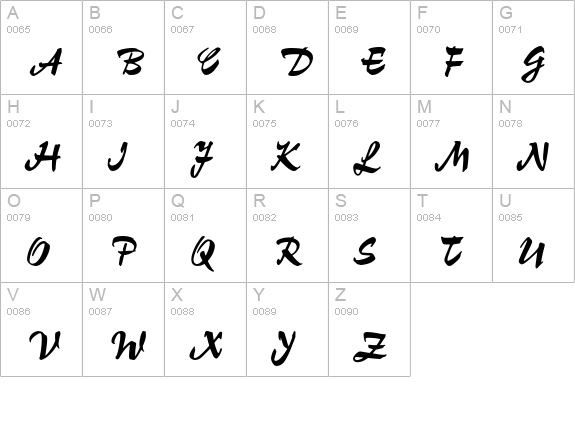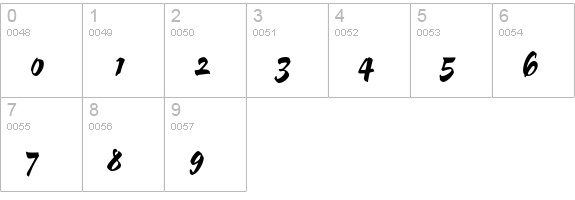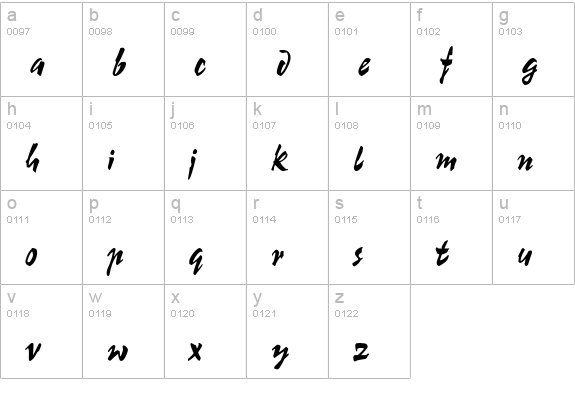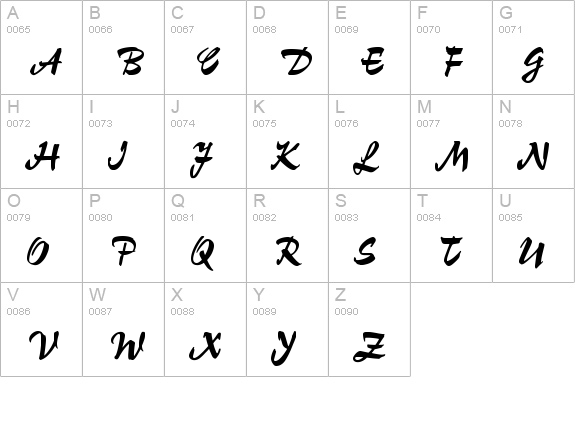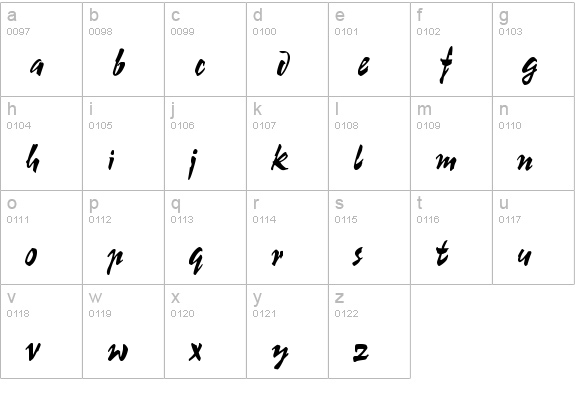
Champion Font Details
The Champion font is a modern and versatile typeface that exudes confidence and strength. With its bold and impactful design, Champion is perfect for creating eye-catching headlines, logos, and branding materials. This font features clean lines and sharp edges, giving it a contemporary and dynamic look. What makes Champion font even more appealing is that it is completely free to download at FontsMarket.com. Whether you're a designer looking to add a powerful touch to your projects or a business owner in need of a standout font for your marketing materials, Champion is the perfect choice. Download this font today and elevate your designs with its bold and commanding presence.